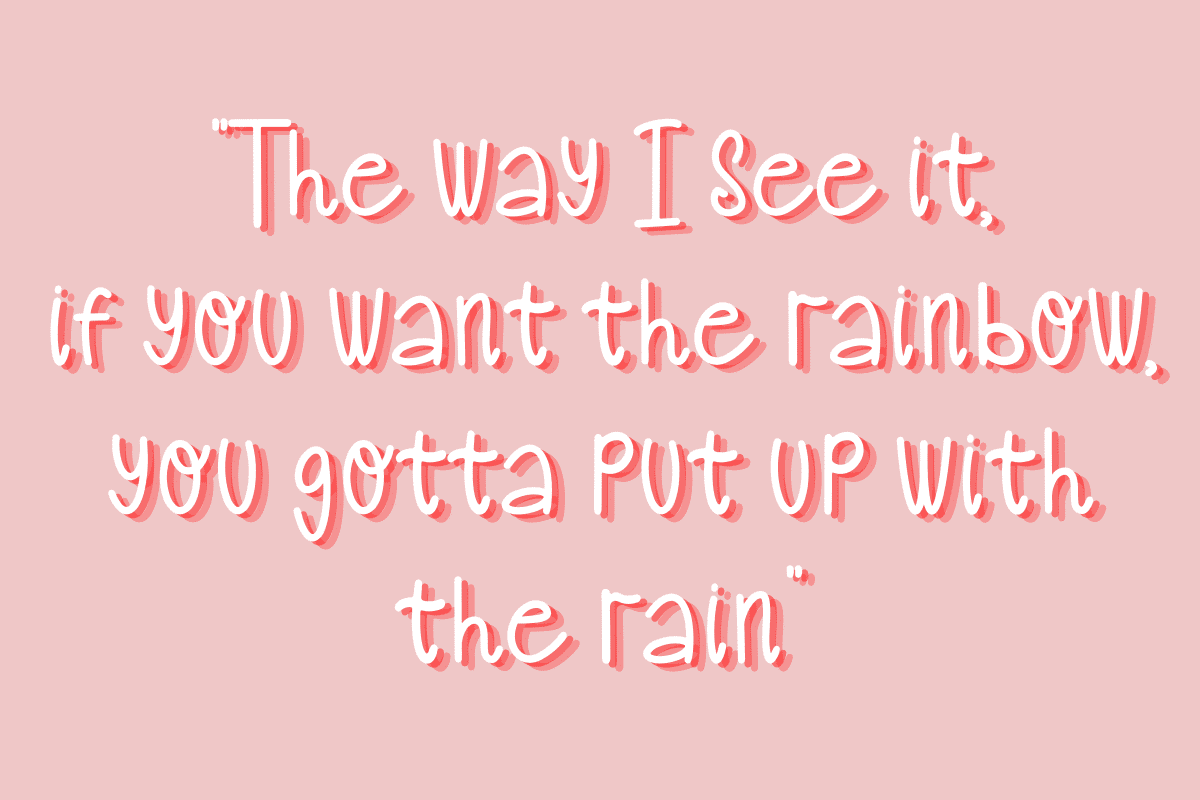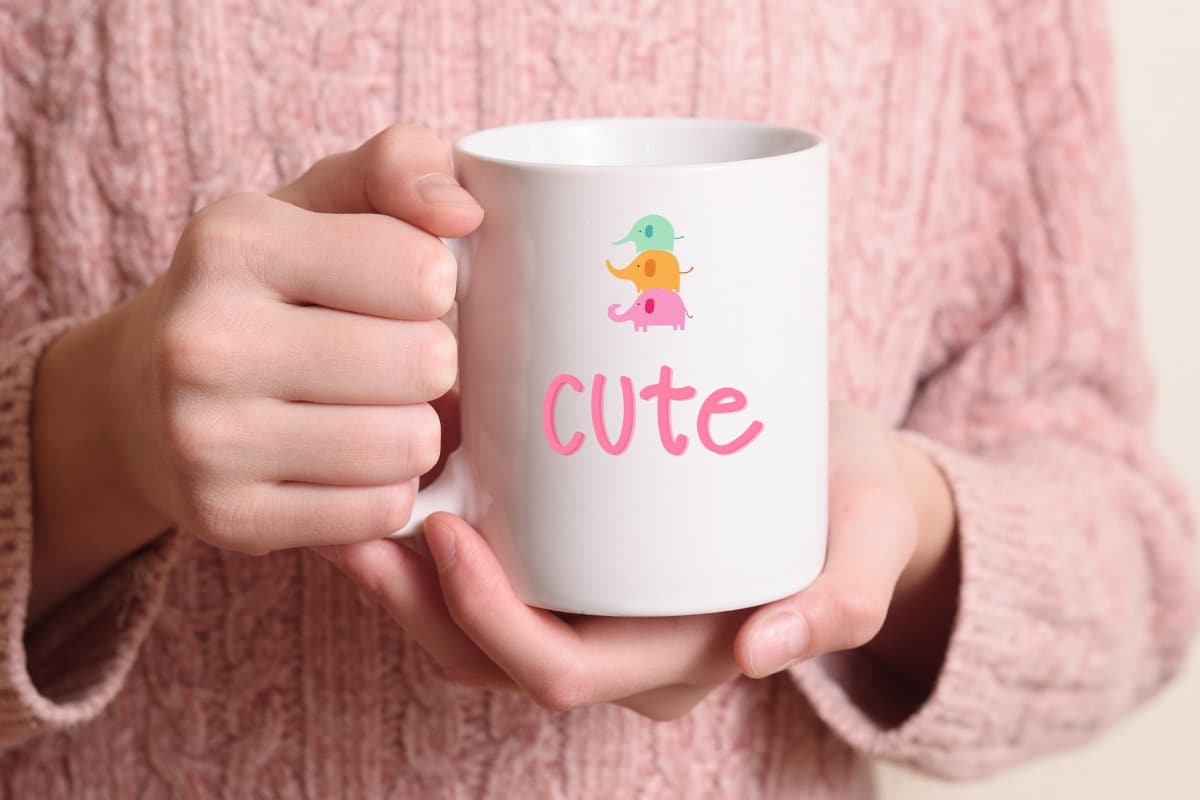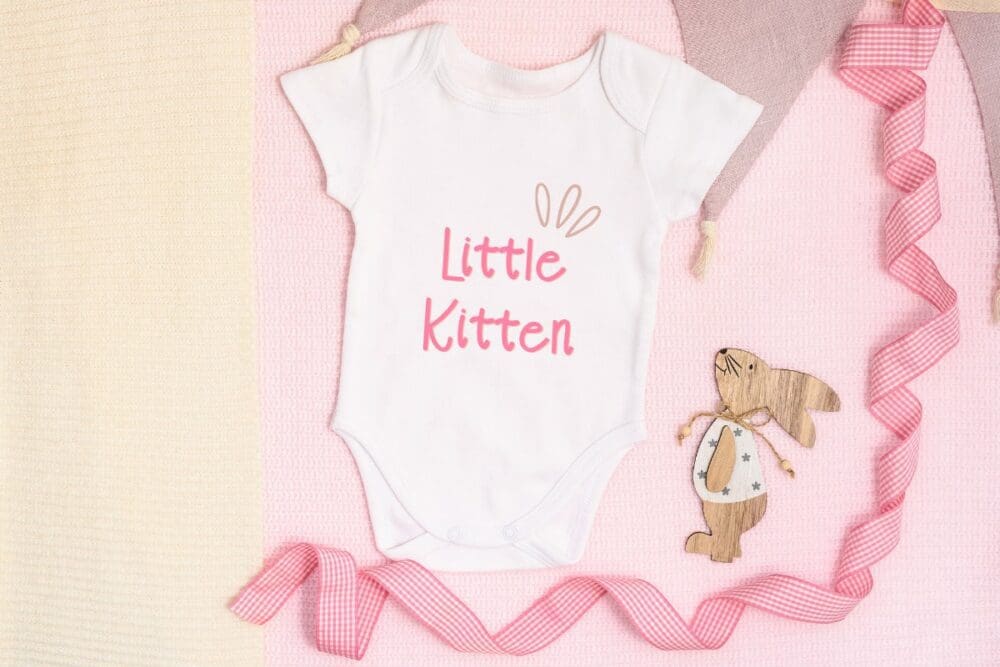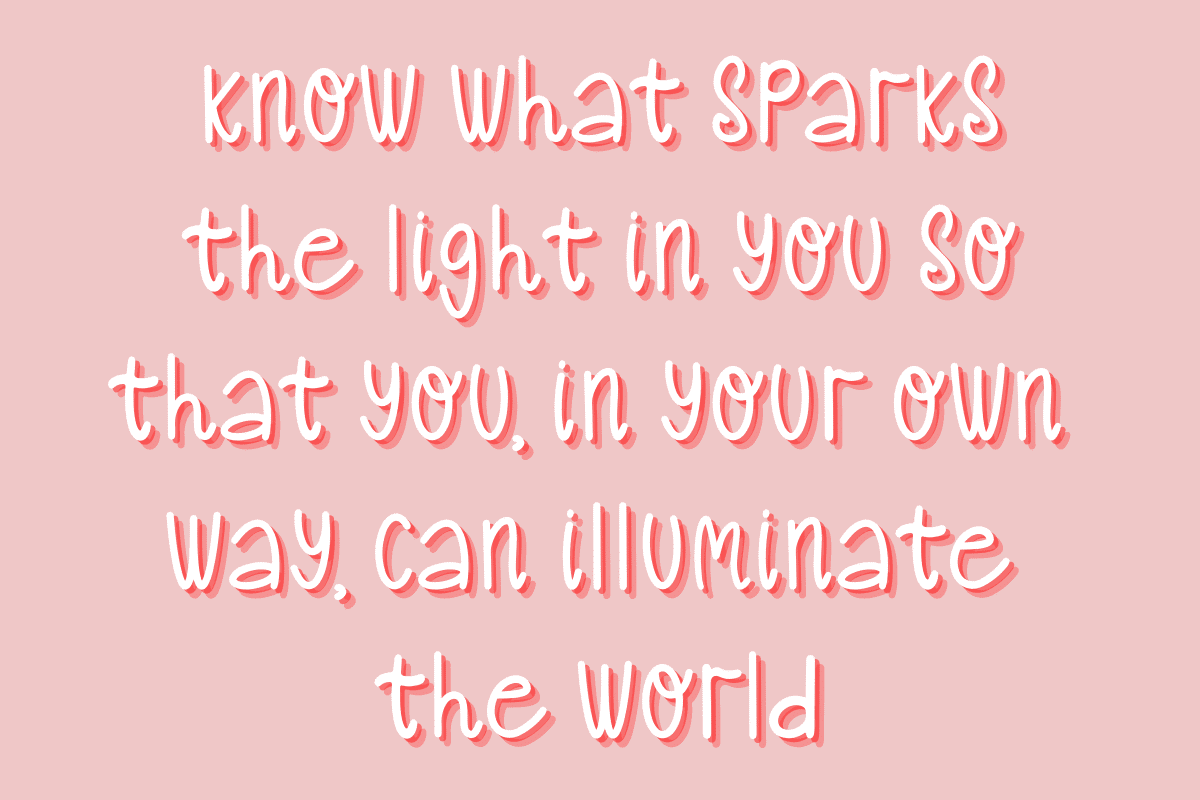
Hello April Font
This is my new font, it’s called Hello April. This font is handwritten font. it’s very suitable to be applied in your design, also it’s perfect for logo, branding, title, social media post, advertisements. product packaging, product designs, label, special event, web design, etc.